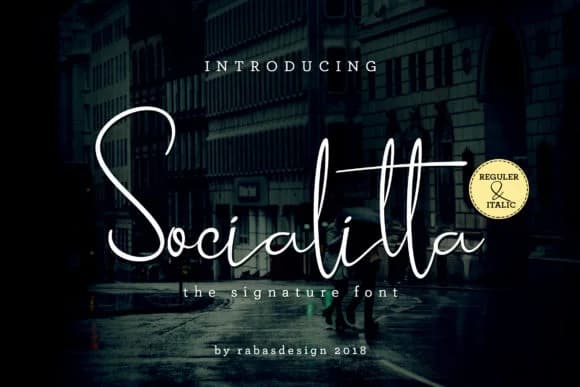
About Socialitta Font
Socialitta Font is a script font that shines as a display or heading face. Pair it with a clean sans-serif or serif font for body text β the contrast creates a clear hierarchy while the two styles stay balanced and easy to read.
Socialitta Font